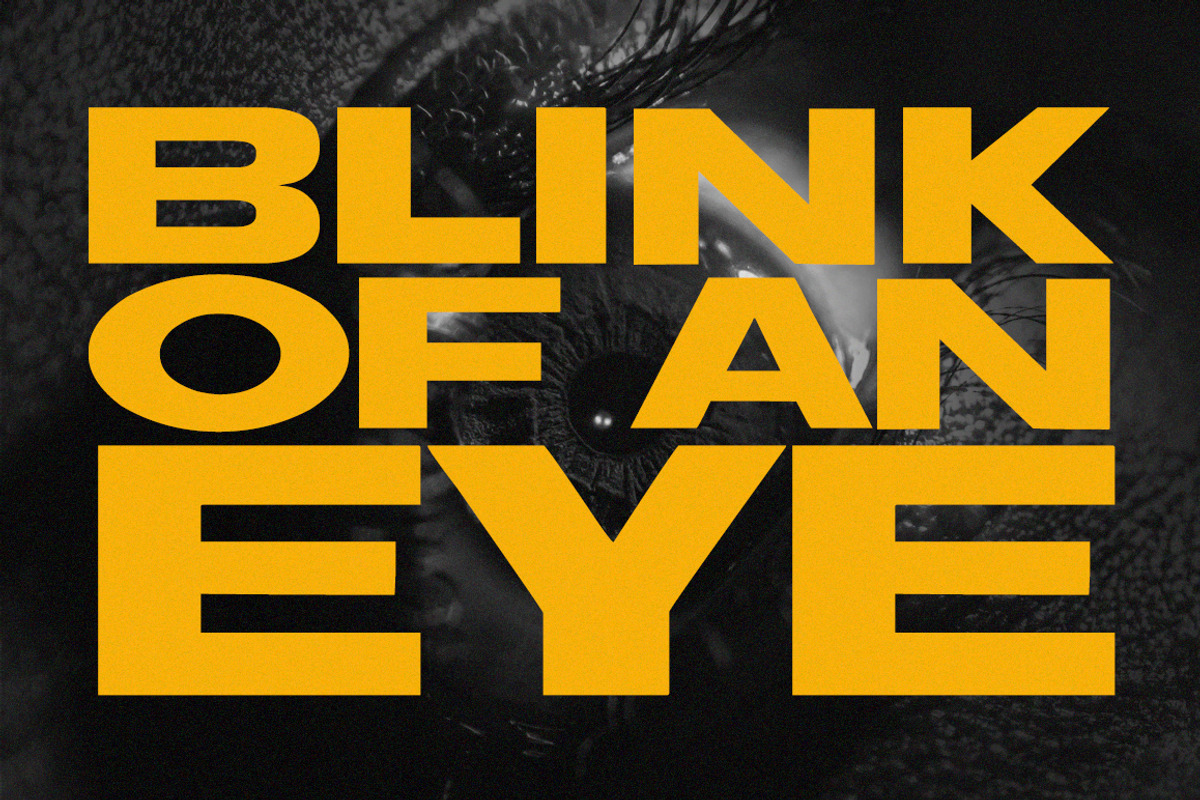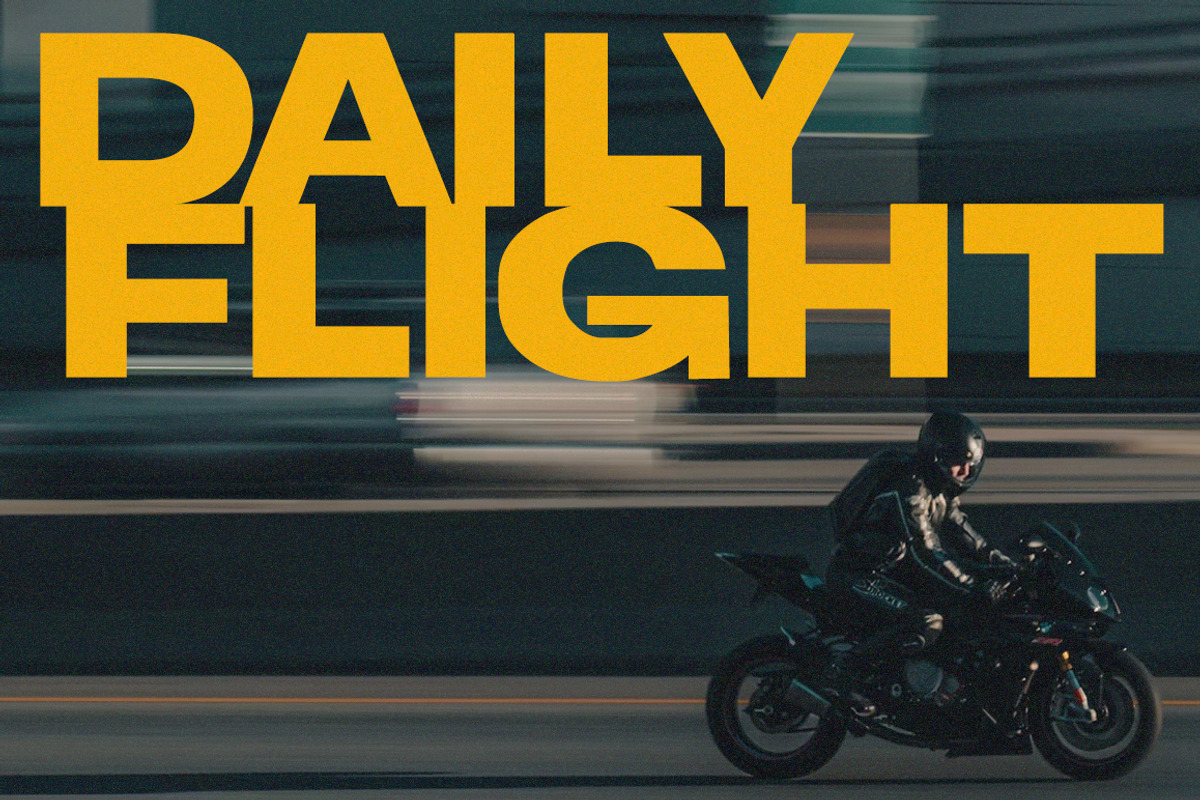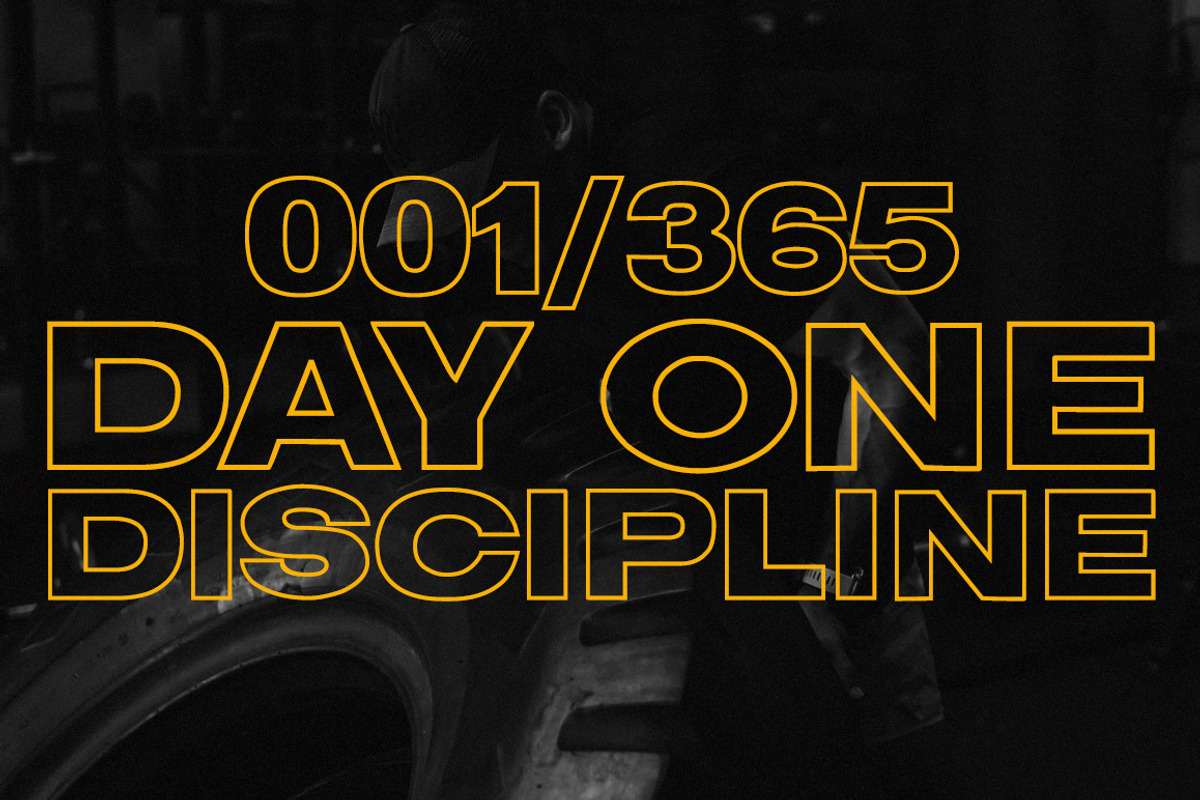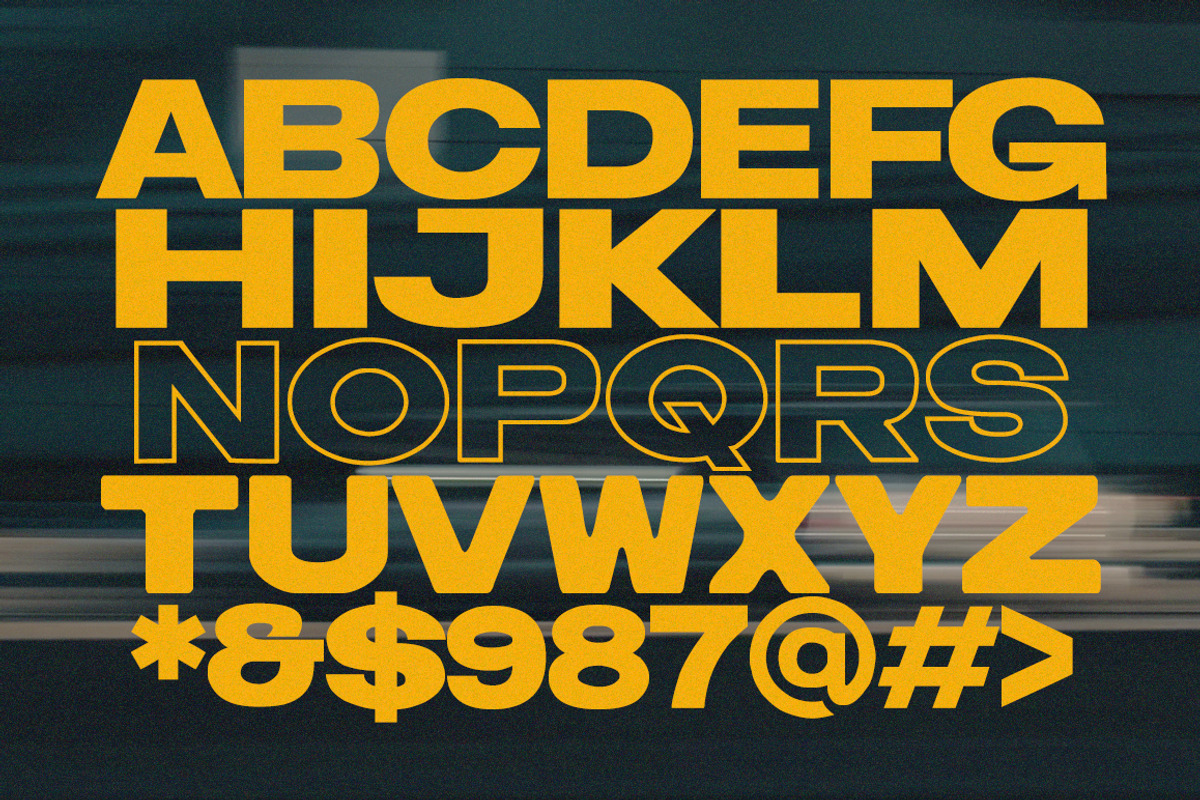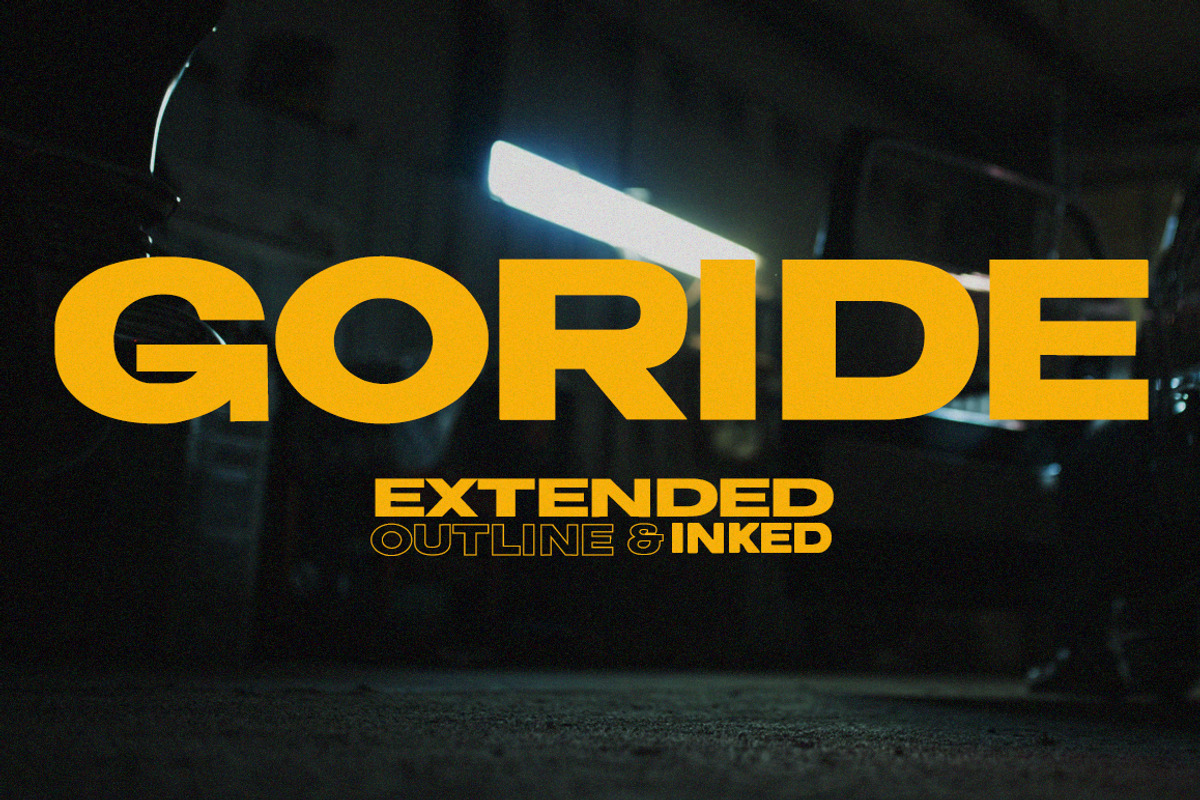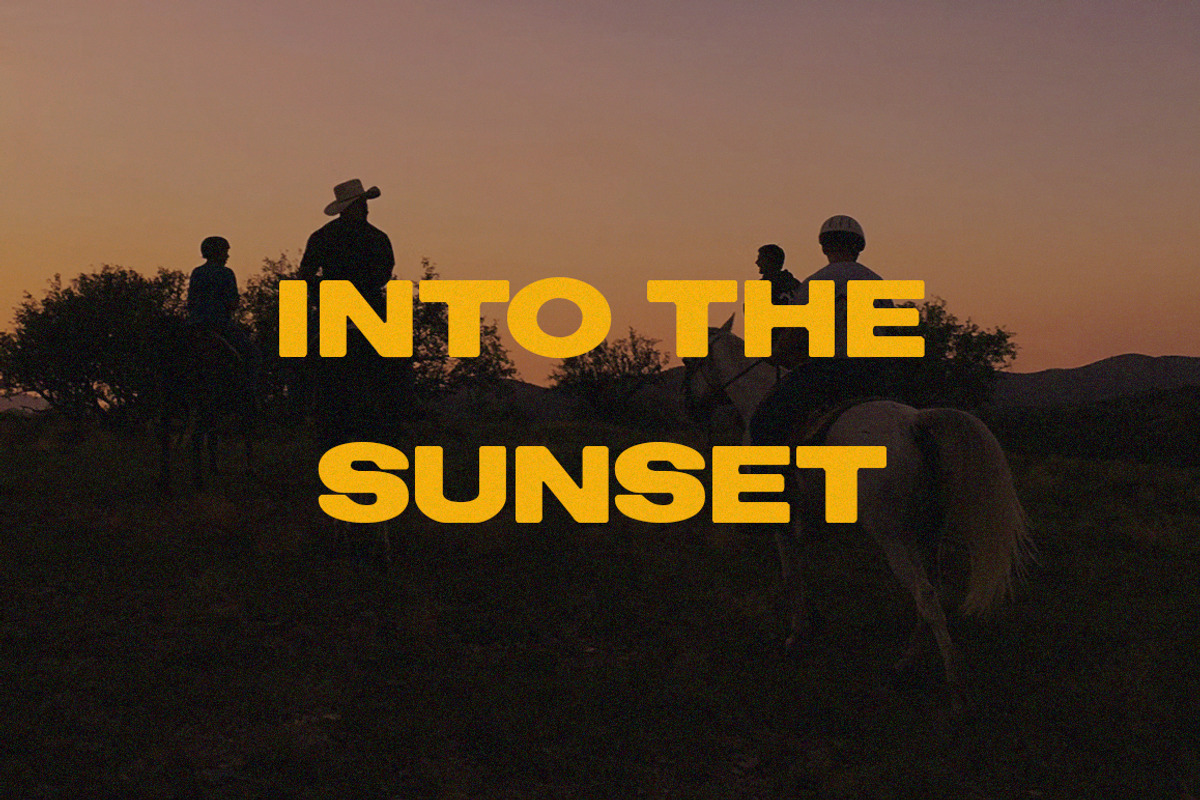
Goride Sans - Typeface
Goride is a modern, versatile sans serif font designed to enhance the visual impact of video thumbnails, posters, magazines, band cover and many more. With its clean lines and contemporary aesthetic, Goride effortlessly captures attention while maintaining readability across diverse platforms and screen sizes. Ideal for creators seeking a stylish yet functional typeface, Goride embodies a perfect balance of boldness and clarity, making it an exceptional choice for titles, captions, and promotional materials in the dynamic world of digital media.